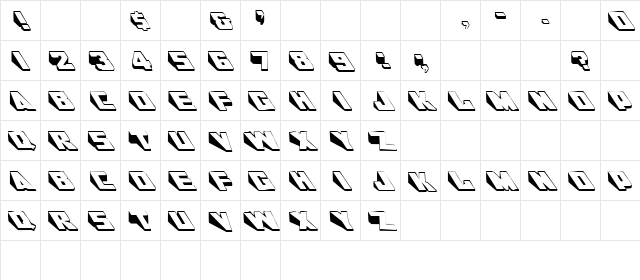
Al-Kharashi Latin 1 Normal
Design Context for Al-Kharashi Latin 1
Al-Kharashi Latin 1 is a composed and adaptable typeface that performs quietly and consistently across a wide range of design contexts.
Pro Tip: Use Al-Kharashi Latin 1 in both headline and body roles to test its range before committing to a single application.